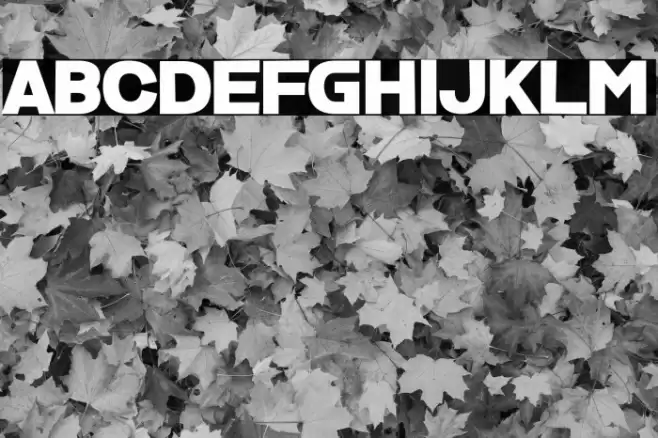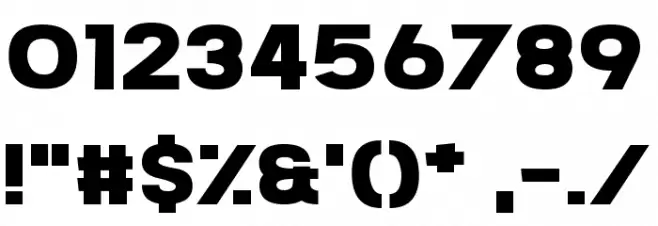
Super Comic Font
Super Comic Description
This bold and impactful typeface features thick, uniform strokes with a strong presence. The characters are designed with a modern aesthetic, showcasing a geometric structure that emphasizes clarity and readability. The uppercase and lowercase letters maintain a consistent style, with rounded edges that soften the overall appearance. The numerals and special characters complement the alphabet with similar boldness and simplicity, making the font versatile for various applications. Its clean lines and solid form make it suitable for attention-grabbing headlines and titles.
A bold, modern typeface with geometric, rounded characters from Comic fonts.
- Proposed Projects: Ideal for comic books, posters, branding, and advertising where a strong, eye-catching font is needed.